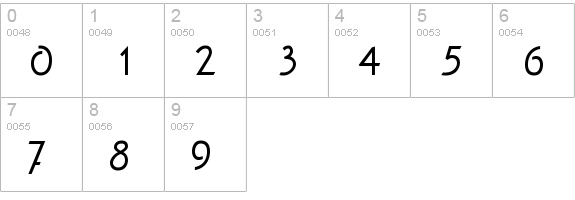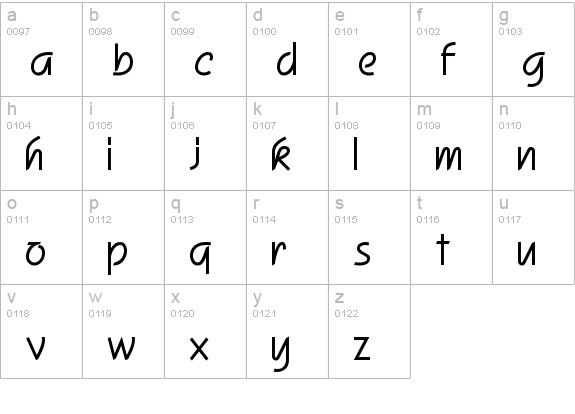
Revere Normal is the standard, neutral variant in the Revere typeface family \xE2\x80\x94 well suited to general body text, paragraphs, and standard typographic work.
Revere Normal font is a versatile and timeless typeface that exudes elegance and sophistication. Its clean and balanced letterforms make it suitable for a wide range of design projects, from branding and advertising to editorial and web design. This font features a perfect balance between classic and modern aesthetics, making it a great choice for both traditional and contemporary designs. The smooth curves and sharp angles of each letter create a harmonious rhythm that is pleasing to the eye. Revere Normal font is freely available to download at FontsMarket.com, making it accessible to designers and typographers worldwide. Whether you're a professional designer or a hobbyist, this font offers endless possibilities for creativity and expression. With its wide range of weights and styles, Revere Normal font allows you to create a cohesive and visually appealing typographic hierarchy in your designs. From bold headlines to elegant body text, this font can handle it all with ease. The versatility of Revere Normal font extends beyond its aesthetic appeal. Its legibility and readability ensure that your message will be effectively communicated to your audience, whether in print or on screen. Its clean and crisp letterforms make it easy to read at both small and large sizes, ensuring that your design looks polished and professional. In conclusion, Revere Normal font is a timeless and versatile typeface that is freely available to download at FontsMarket.com. Its elegant and balanced letterforms make it suitable for a wide range of design projects, while its legibility and readability ensure effective communication. Whether you're a professional designer or a hobbyist, this font is a valuable addition to your typographic toolbox.